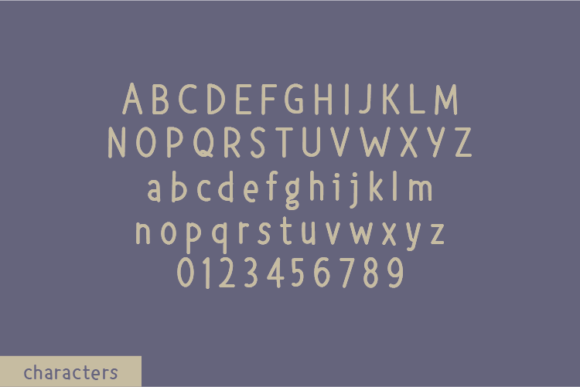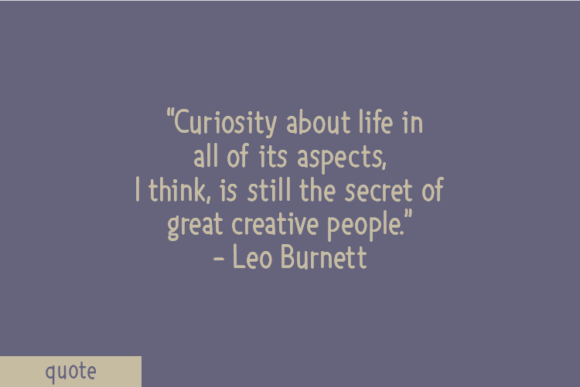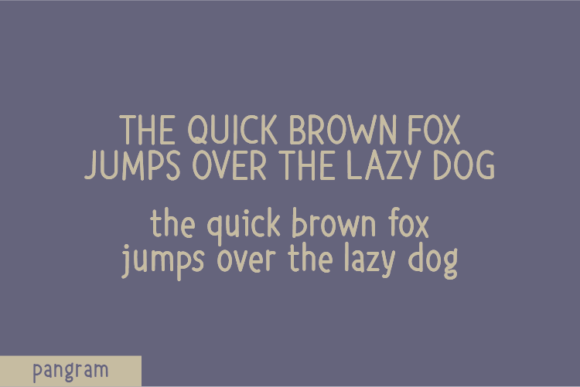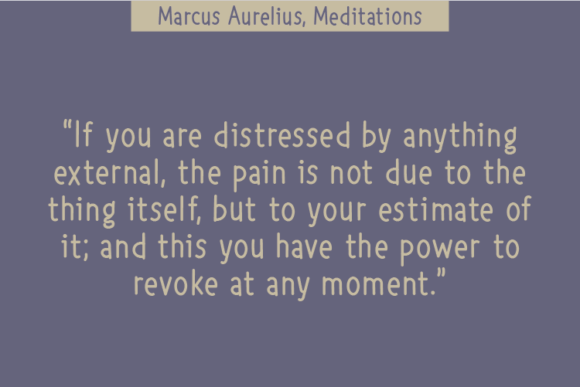
Unleashing the Charm of Handcrafted Fonts
There’s something special about the moment when a design idea clicks – the rush of excitement, the thrill of creation. For designers, it’s a feeling that’s hard to replicate, but it’s what drives us to push the boundaries of what’s possible. And sometimes, it’s the smallest details that make all the difference.
Enter the Housebroken Font, a natural sans serif font that’s making waves in the design community. Created without altering a single node in each character’s indentation, this font is a true original – and its unique charm is perfect for quotes, notes, tees, and any product design where a touch of personality is needed.
For designers, the Housebroken Font is a valuable addition to their toolkit. Its handmade feel and organic texture add a layer of depth and emotion to any project, making it an ideal choice for anyone looking to add a touch of human touch to their designs.
Key Features of Housebroken Font
- Font Family: Housebroken Font is a sans-serif font family that includes multiple weights and styles, making it suitable for various design applications.
- Unique Characteristics: Housebroken Font features a unique blend of modern and retro elements, giving it a distinctive look that sets it apart from other sans-serif fonts.
- Weight and Style Options: The font family includes multiple weights, from light to bold, and various styles, such as regular, italic, and condensed, offering flexibility for designers.
Housebroken Font Review
I recently had the chance to work with Housebroken Font, and I must say, it’s a mixed bag. ✨ The font’s unique, hand-drawn aesthetic is a major draw, and I love the way it adds a touch of whimsy to text-based designs. The bold and italic weights are also a nice touch, offering a good range of options for different design scenarios.
Here are some of the things that work well with Housebroken Font:
- ✨ Unique, hand-drawn aesthetic
- ✨ Good range of weights, including bold and italic
- ✨ Suitable for a variety of design scenarios
However, there are also some limitations to be aware of:
- ⚠️ Limited language support
- ⚠️ May not be suitable for small text sizes due to its hand-drawn nature
- ⚠️ May require additional styling to ensure legibility in certain contexts
Overall, I think Housebroken Font is a great choice for designers looking to add a touch of personality to their work. However, it’s essential to be aware of its limitations and plan accordingly. With a bit of creativity and attention to detail, Housebroken Font can be a valuable addition to any design toolkit.
Getting the Most Out of Housebroken Font
For best results, use the Housebroken font in headings and titles to add a touch of elegance and sophistication.
Combine the Housebroken font with other fonts to create a unique and visually appealing design.
Housebroken font is ideal for:
Food and restaurant branding
Home decor and furniture design
Any design project that requires a touch of sophistication and elegance